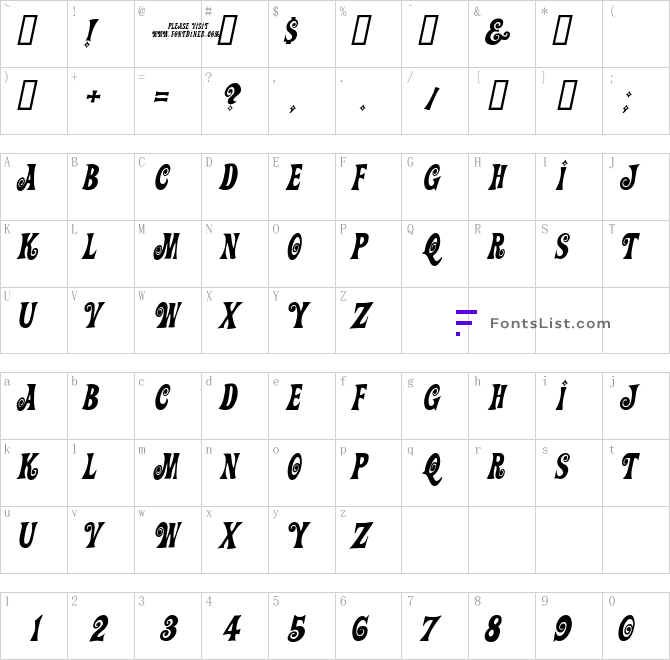
- Font Name:Action Is, Diagonal JL
Action-Is-Diagonal-JL-Italic.ttf is a very beautiful artistic font, Action-Is-Diagonal-JL-Italic.ttf is widely used in the design and printing of various books and pictures,Action-Is-Diagonal-JL-Italic.ttf has a strong visual impact,Action-Is-Diagonal-JL-Italic.ttf is a commonly used font in newspapers, magazines and books, and is used in posters, e-commerce Poster design, store design, logo design, font design and other fields.Action-Is-Diagonal-JL-Italic.